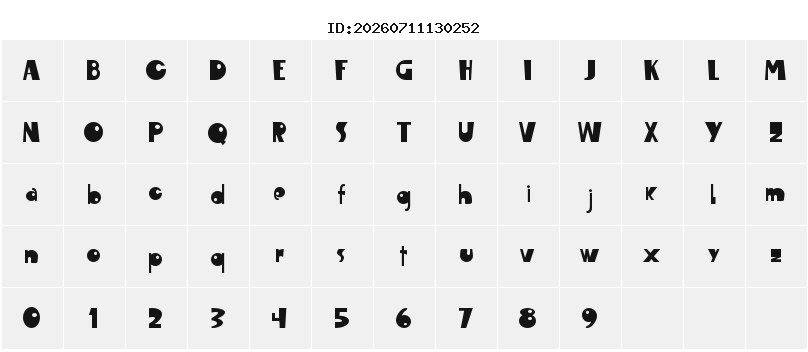
• Font Name: Maropawi Club
• Full Font Name: Maropawi Club
About Maropawi Club.ttf
Maropawi Club.ttf is a modern, elegant sans-serif font designed for ultimate readability and visual harmony. Perfect for branding, headlines, web design, and print materials.